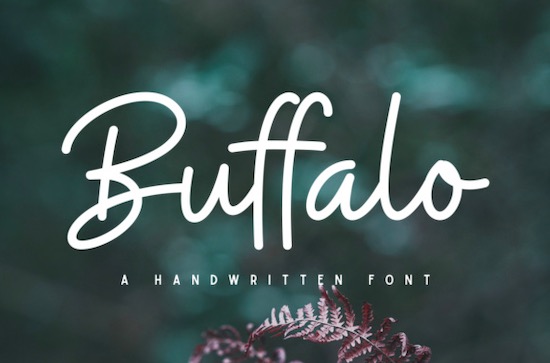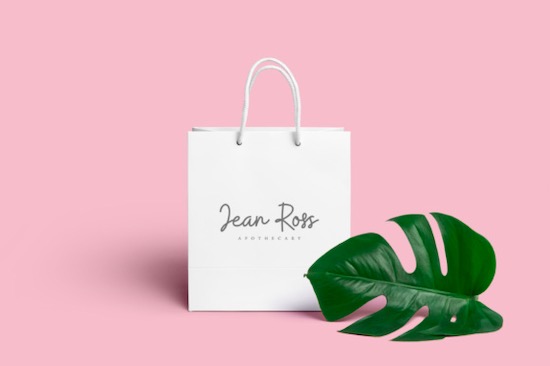
Buffalo is a classy and modern handwritten font with a unique monoline look. It was designed and published by AMTYPES along with striking and classy letters. This Script font has alternate letters from a-z, uppercase & lowercase characters, numbers, and punctuation.
Buffalo Handwritten Script Font